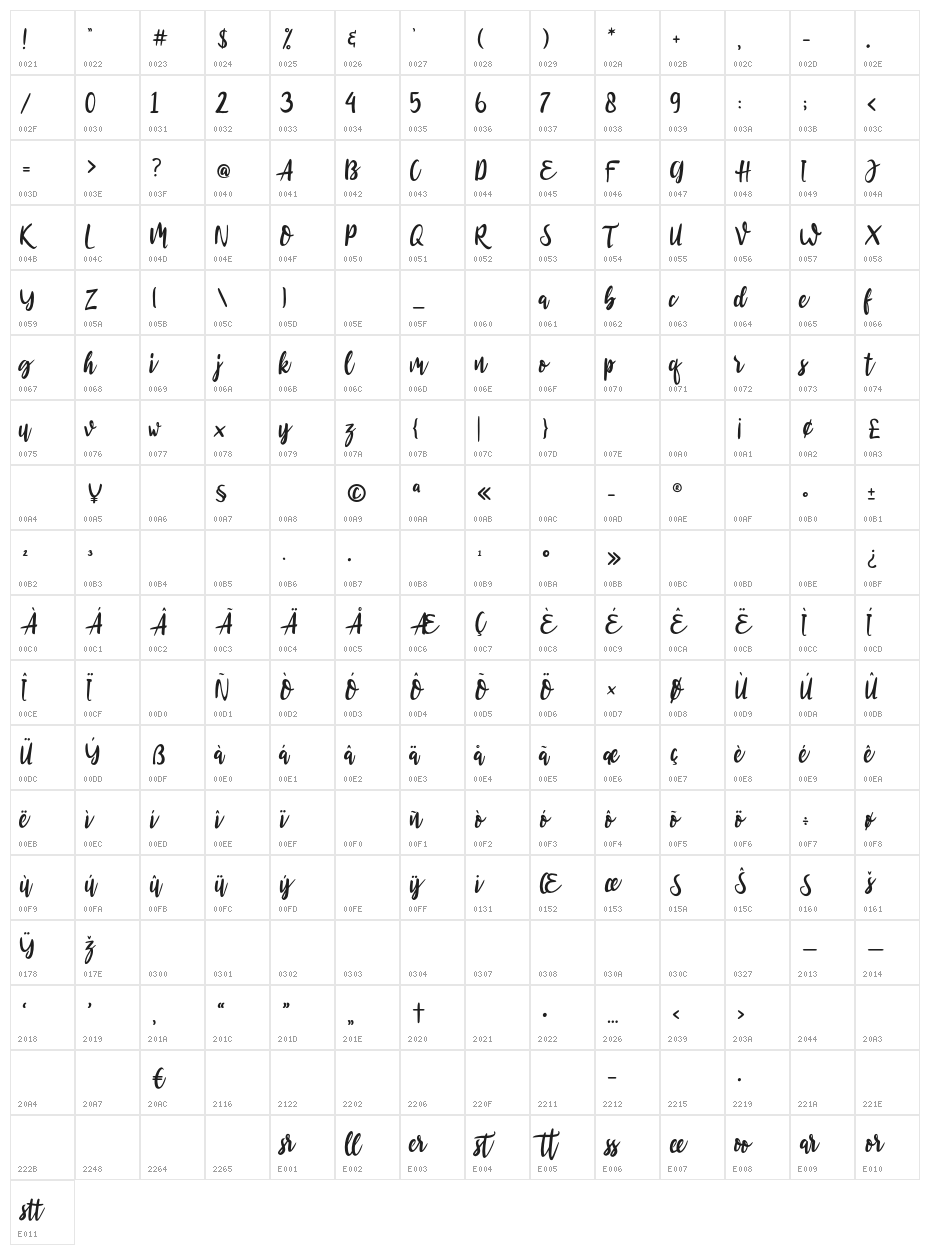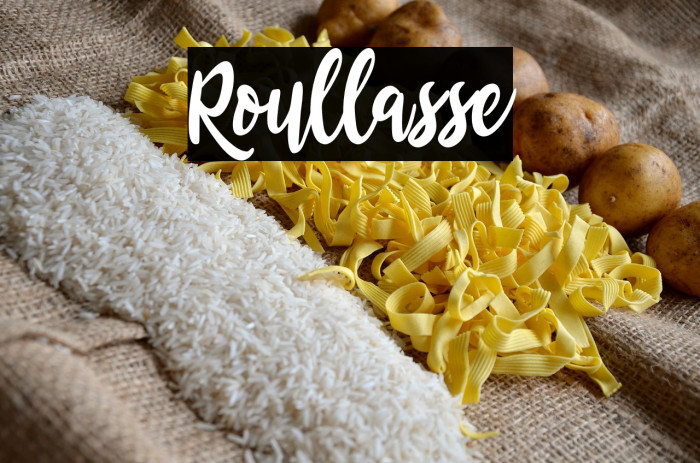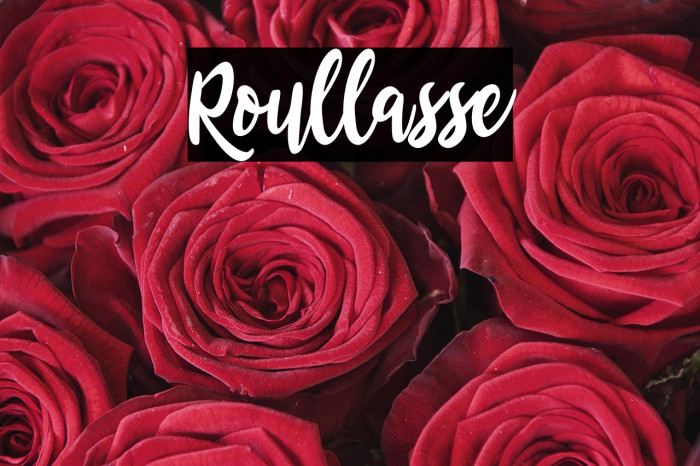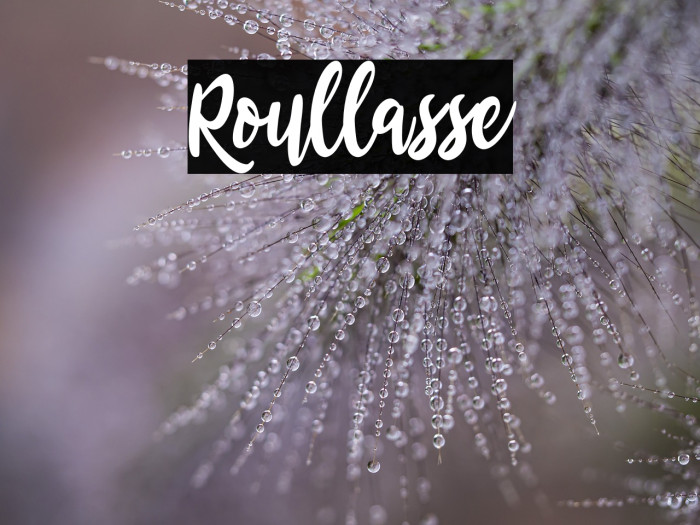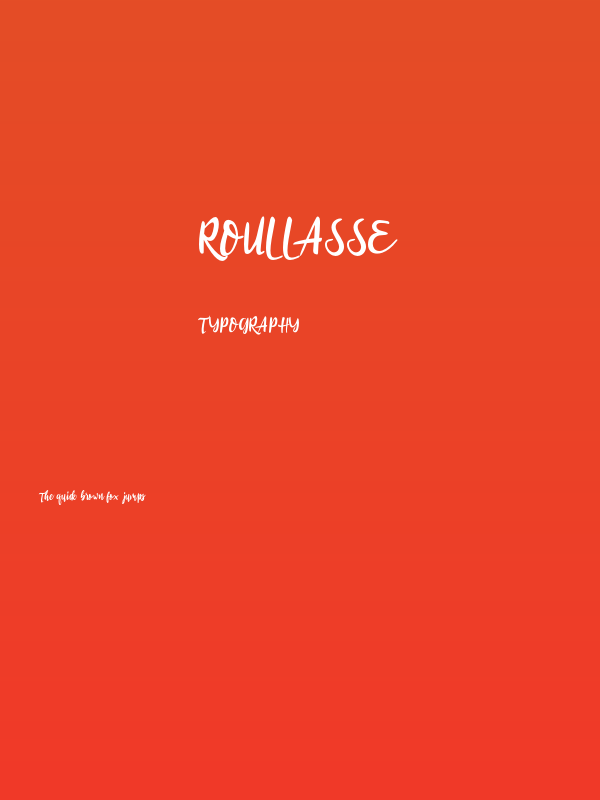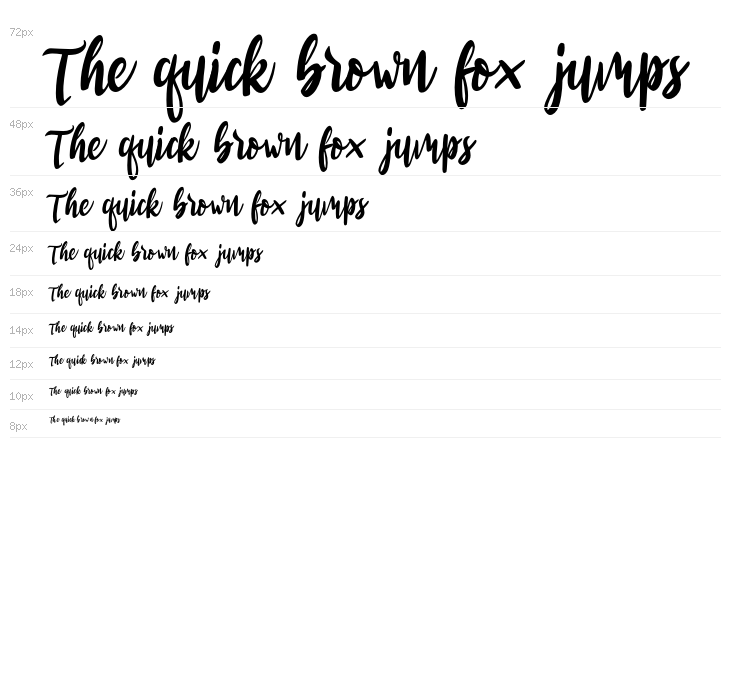
Roullasse Font
Roullasse Description
This font features a lively and expressive handwritten style, characterized by its fluid and dynamic strokes. The uppercase letters exhibit a bold presence with a slight slant, adding to the energetic feel. Lowercase letters maintain a consistent flow, enhancing readability while retaining a personal touch. The numerals are clear and distinct, matching the overall playful aesthetic. Special characters are well-integrated, ensuring versatility in various design contexts. The font's organic curves and varying stroke widths contribute to its approachable and friendly appearance, making it suitable for creative and informal applications.